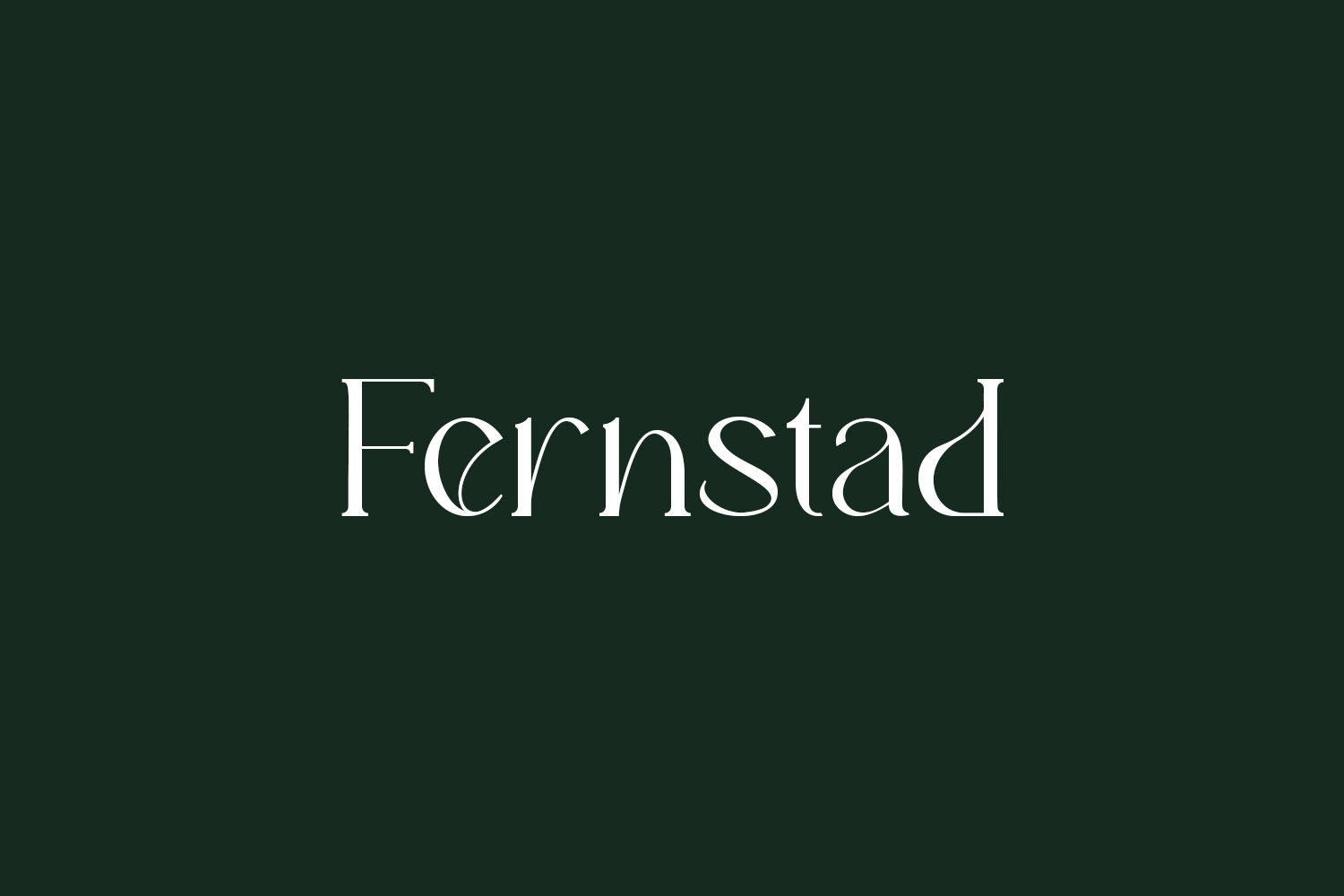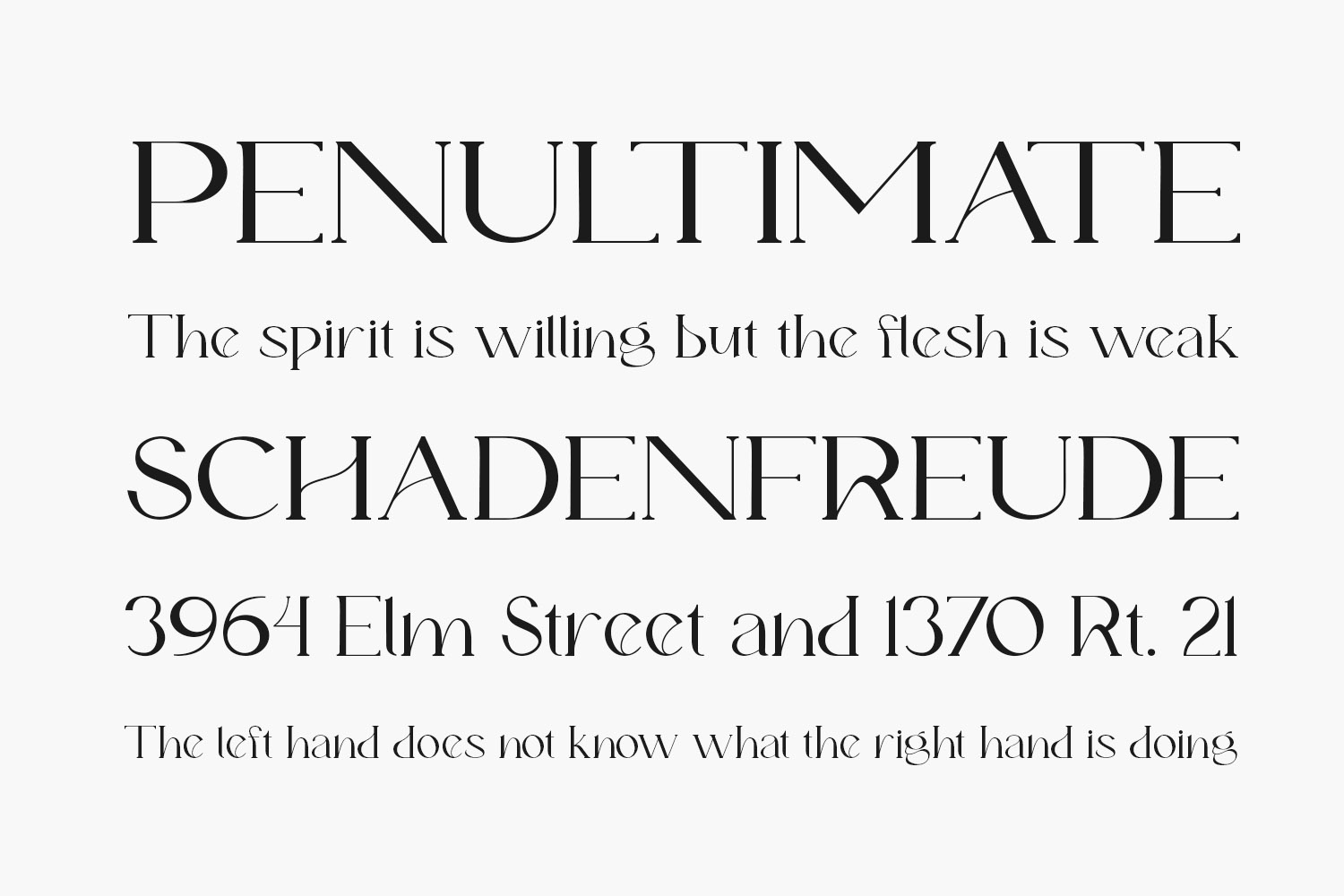
Fernstad Free Font is a thin, distinct and elegant serif font. It can be used for various purposes such as logos, wedding invitations, headings, t-shirts, letterhead, signage, labels, news, posters, badges and so much more. Fernstad Free Font was designed by Ez Type and is free for personal use only. Please purchase the full version for commercial use.